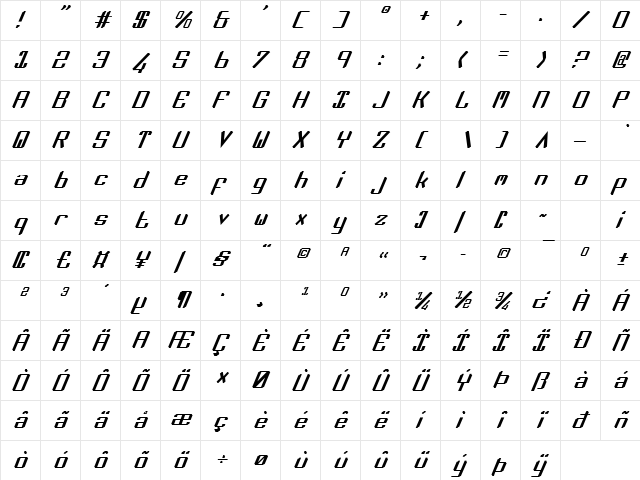
Zee Lance Italic Italic
Design Context for Zee Lance Italic Typeface
Zee Lance Italic takes a measured approach to typography — its balanced proportions and neutral character make it a reliable workhorse for both digital and print work. The dynamic lean of this cut emphasises speed and emphasis in any layout.
Pro Tip: Try Zee Lance Italic for annotation and caption copy alongside an upright companion — the contrast in angle creates a dynamic but ordered typographic system.